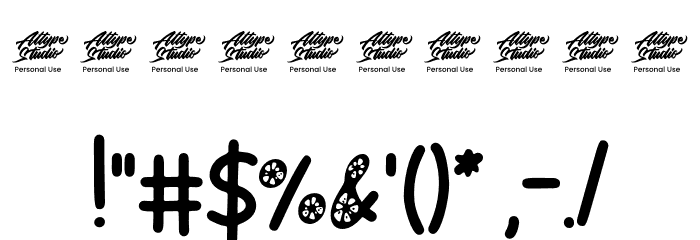
LemonPress Display - Personal Use Font
This playful and decorative font features a unique design where certain letters incorporate a lemon slice motif, adding a whimsical and fresh touch. The characters are bold and rounded, with a hand-drawn feel that exudes a casual and friendly vibe. The uppercase and lowercase letters maintain a consistent style, with the lemon slice detail appearing in both cases. The font includes a full set of numerals and a variety of special characters, making it versatile for creative projects. Its distinct style is perfect for adding a fun and lively element to any design.
A playful, decorative font with lemon slice motifs and a hand-drawn style.
- Proposed Projects: Ideal for children's book covers, playful branding, greeting cards, and summer-themed designs.
- Overall Style: Playful, Whimsical